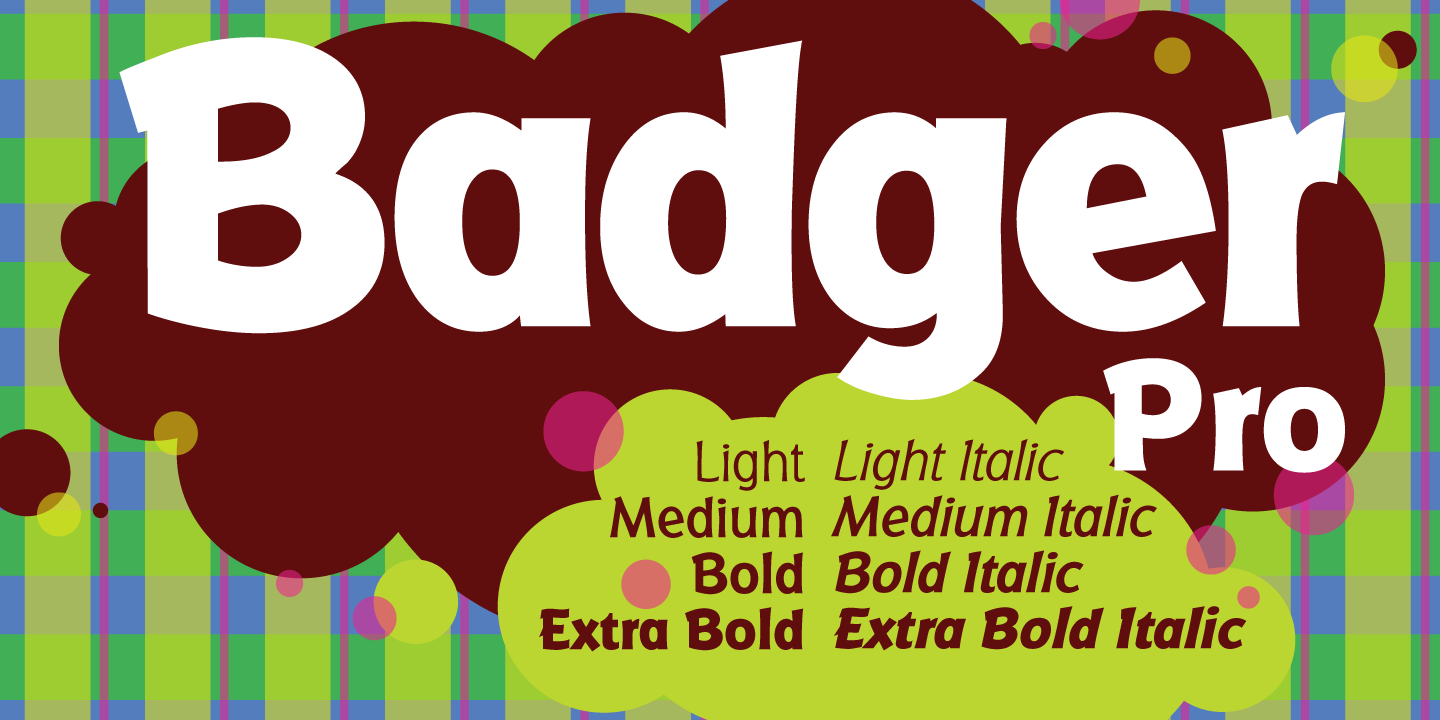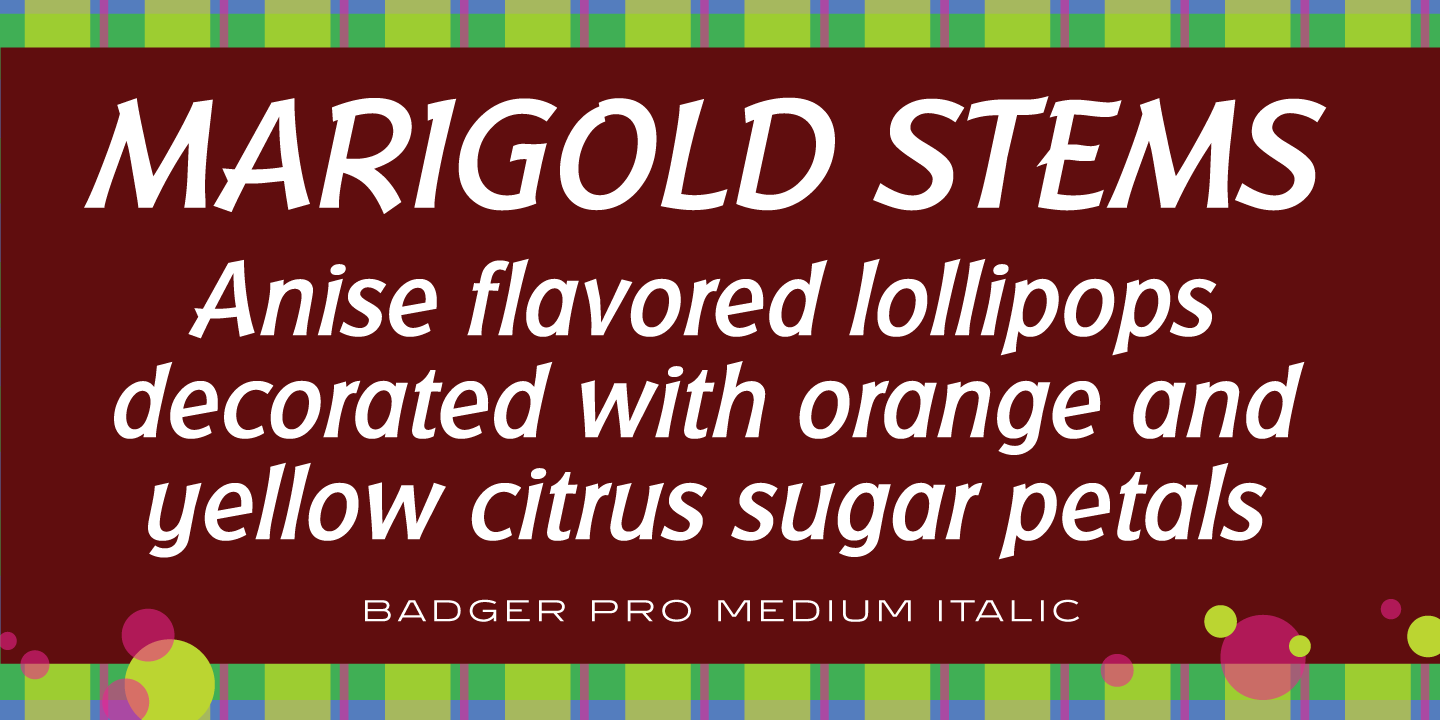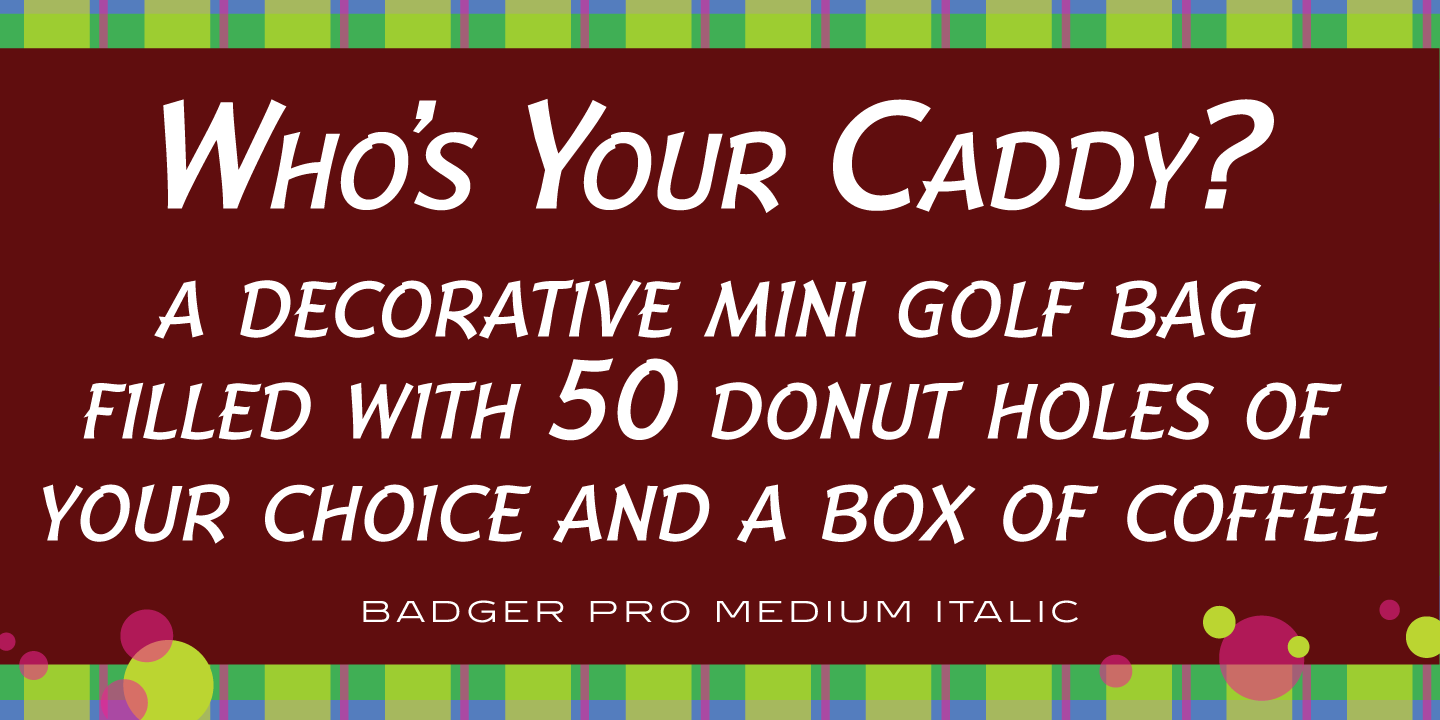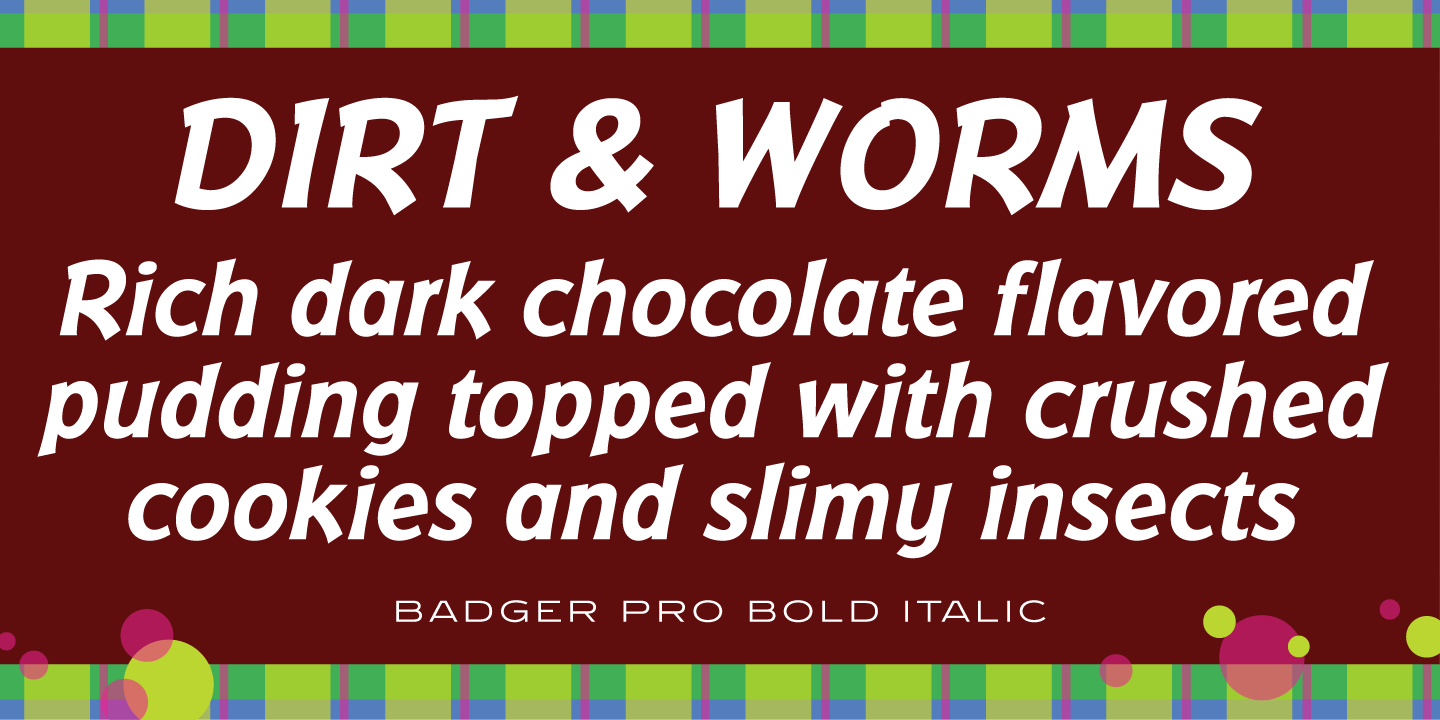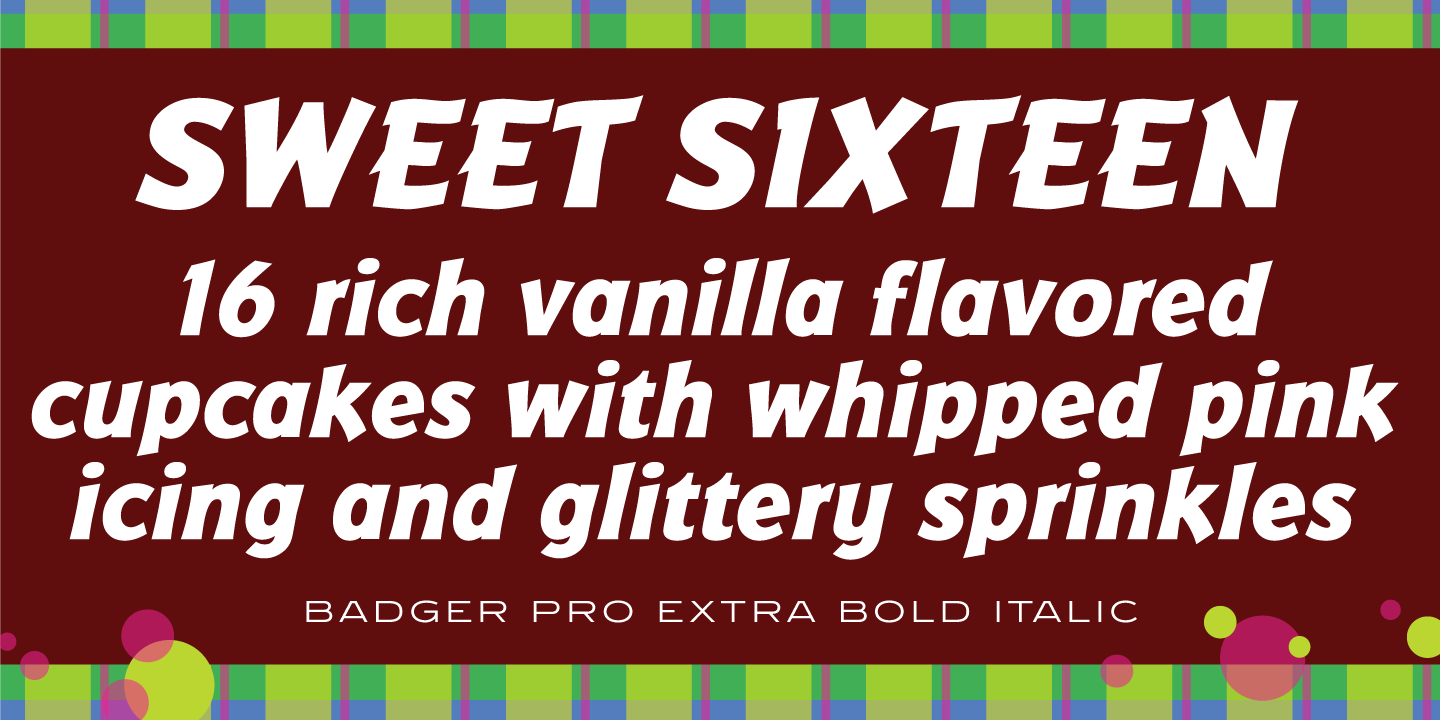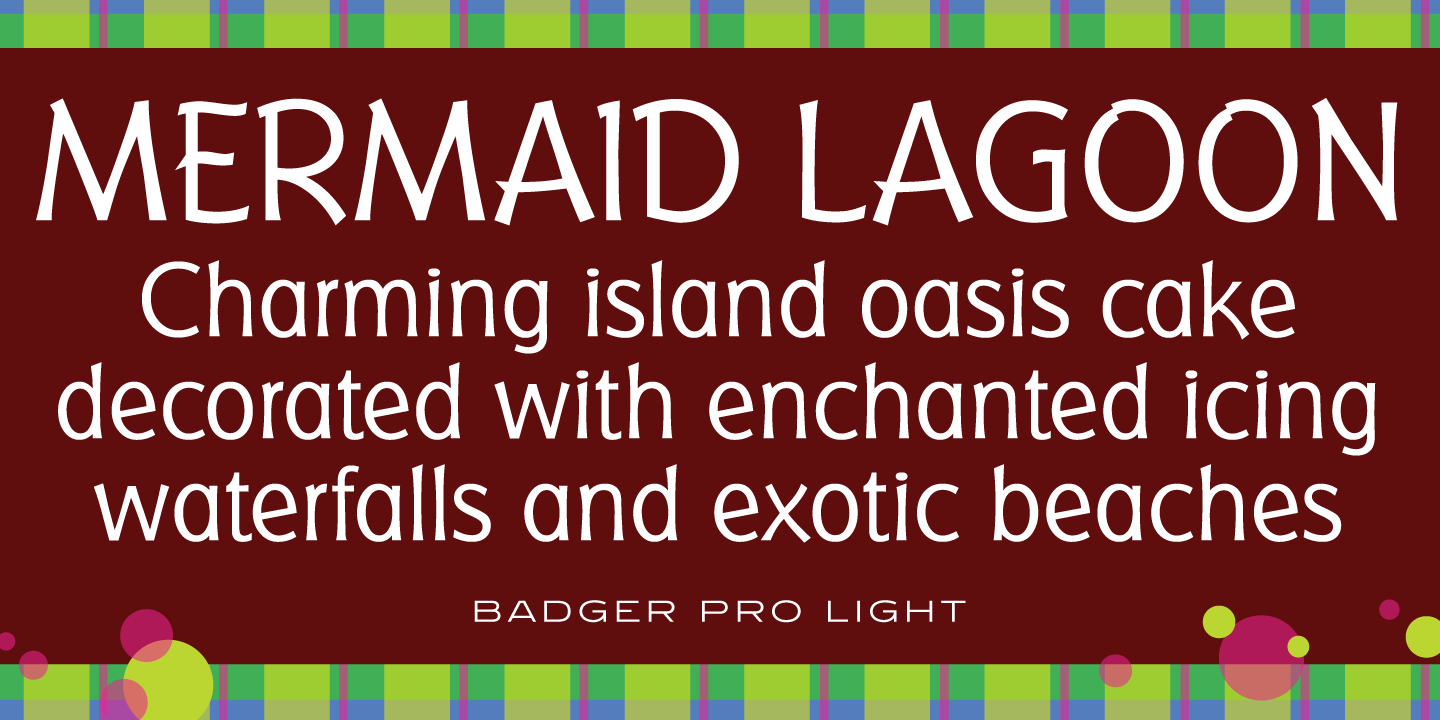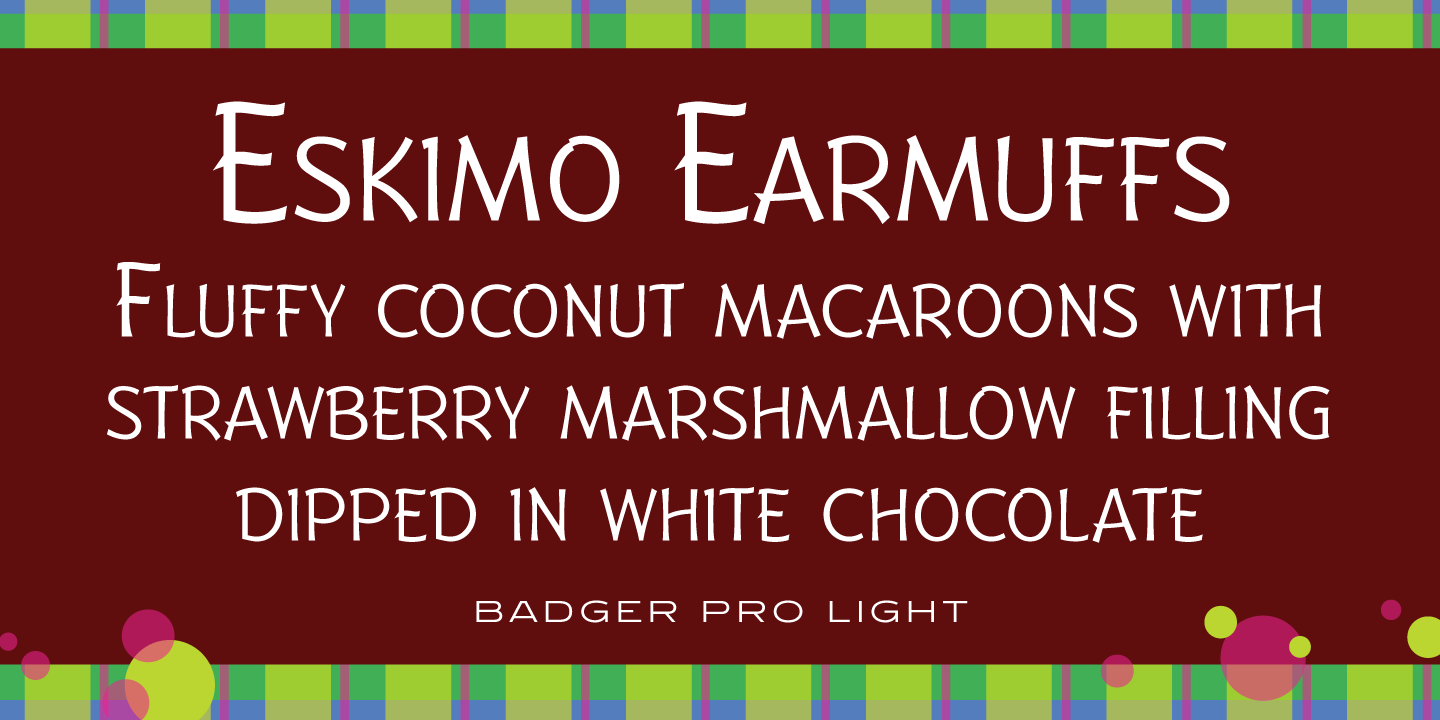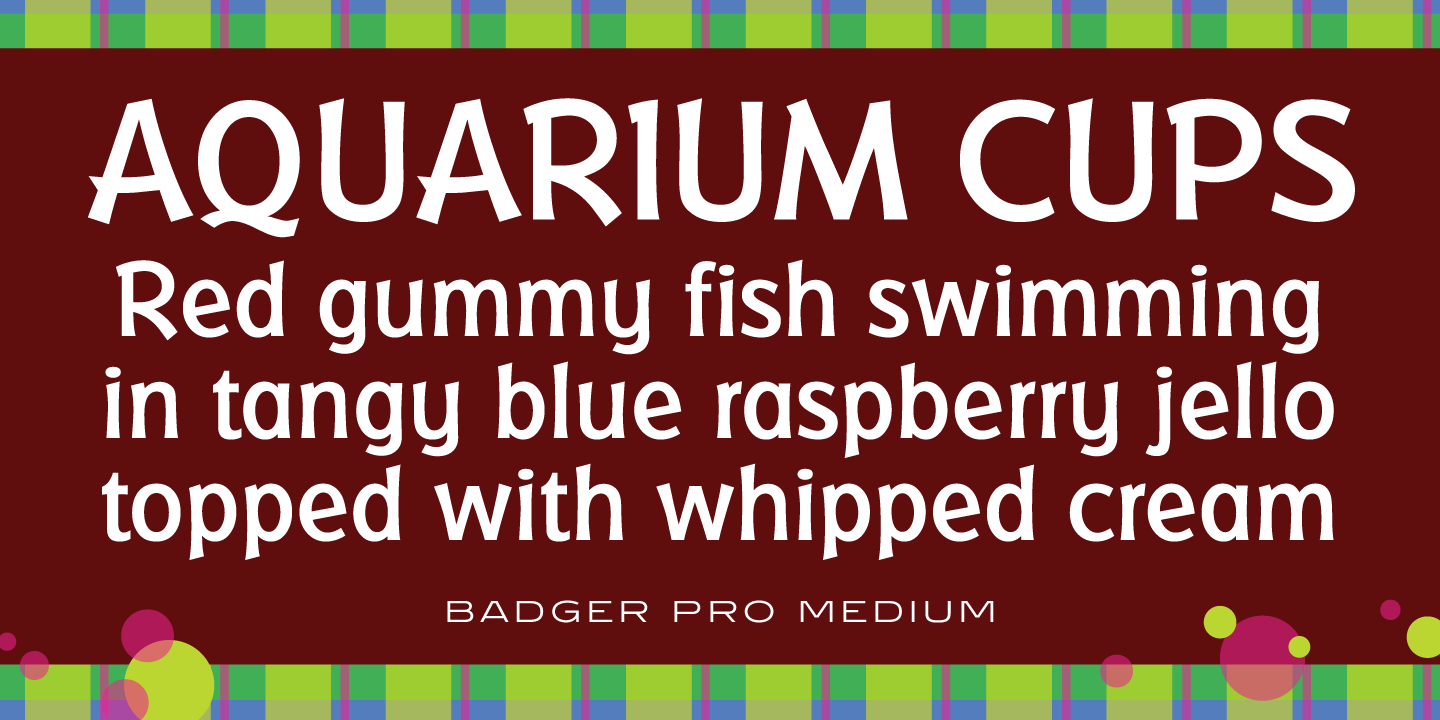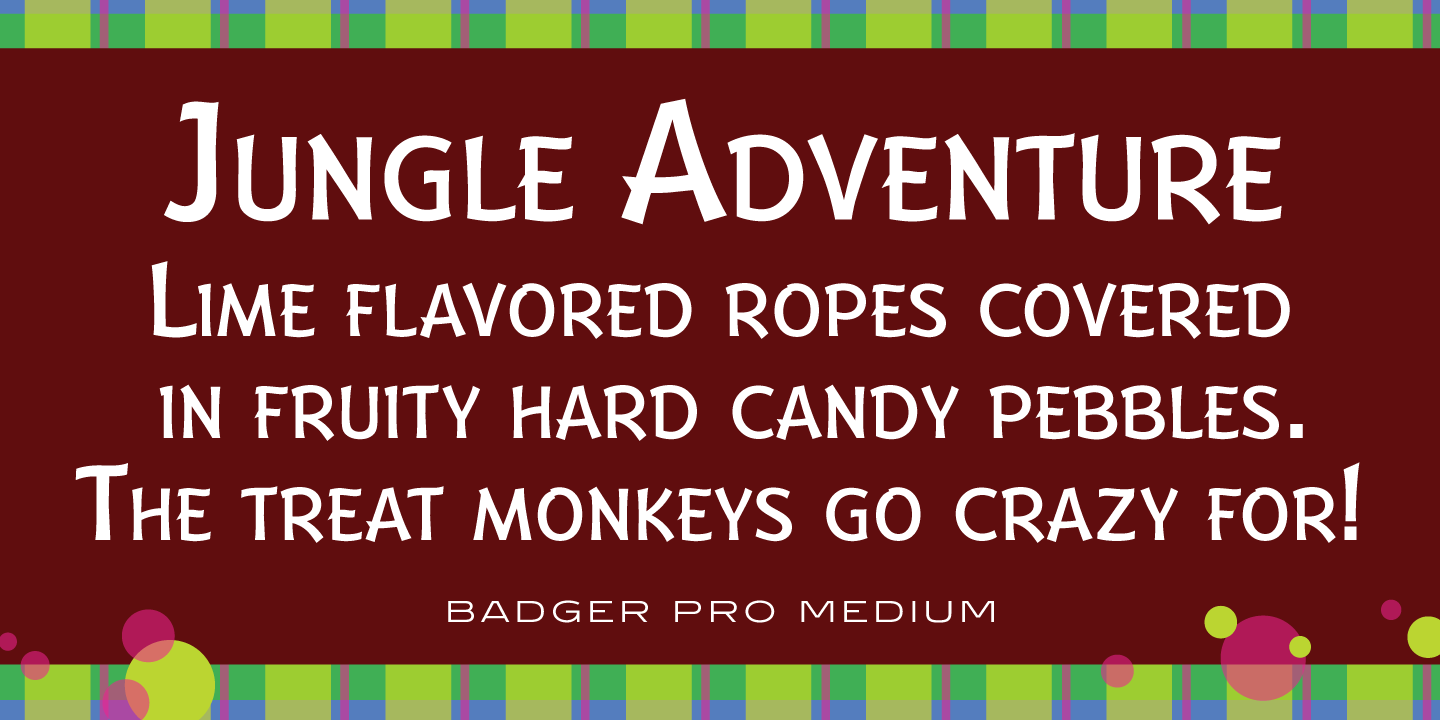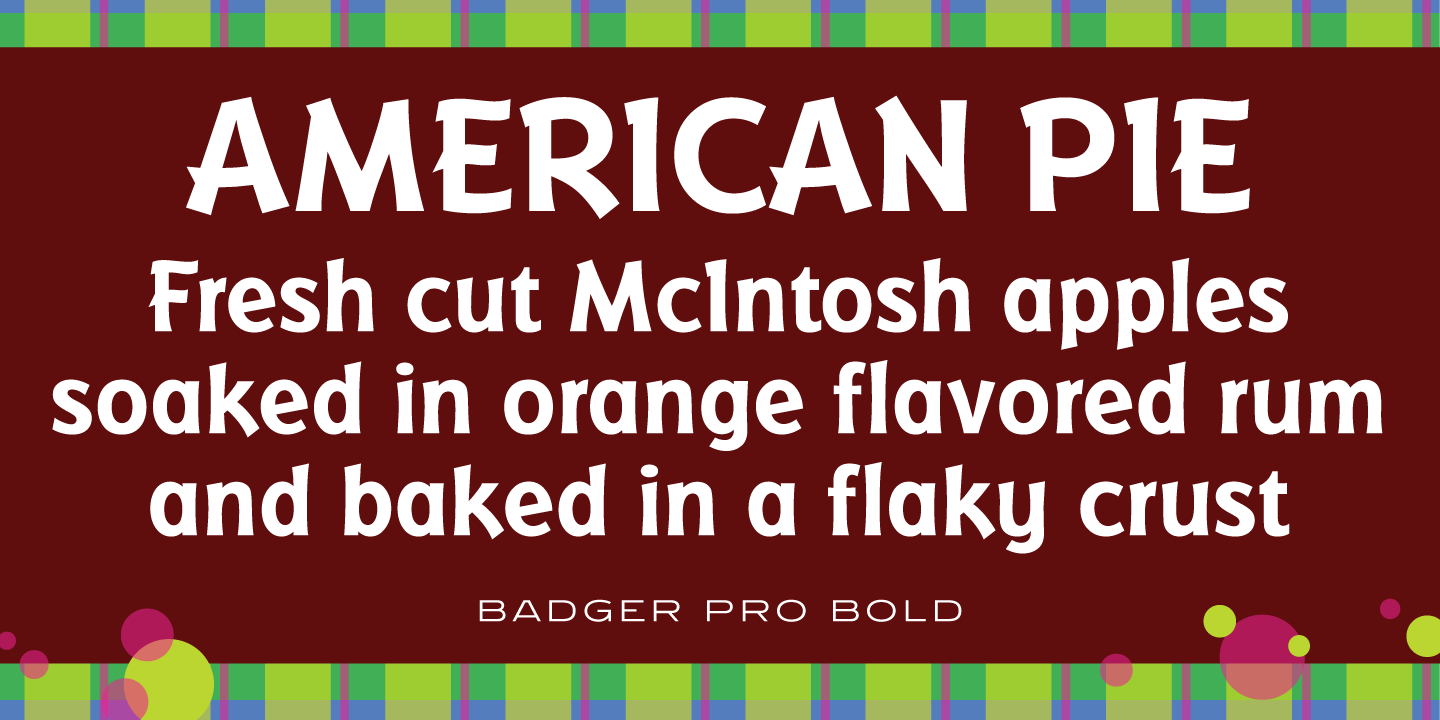
Badger was a glyphic font family, created for QBF in Manchester, England. Its digital letterforms were manufactured by Pat Hickson (P&P Hickson) exclusively for the Red Rooster Collection, and its full commercial version was produced by Steve Jackaman (ITF). Jackaman and Ashley Muir completely redrew the family and released the Pro version in 2010. Badger Pro has a sophisticated, delicate feel, and is expressive enough to be used in a wide variety of projects.